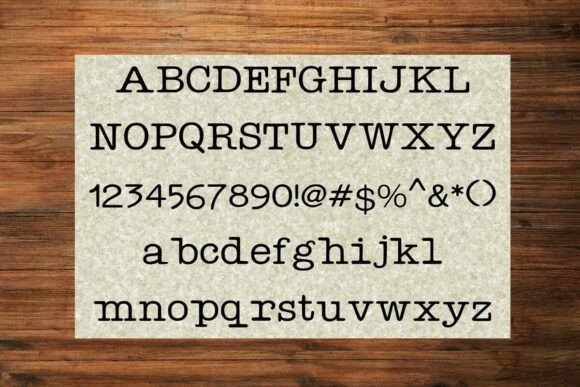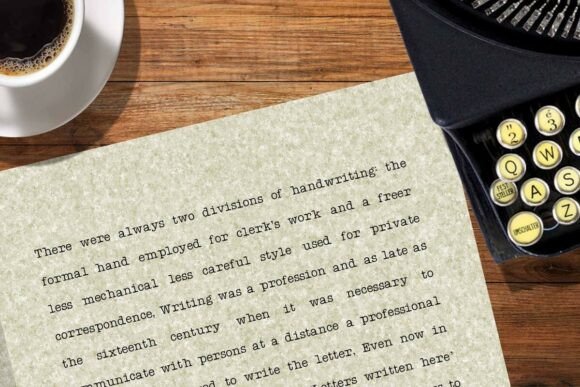
Introduction to Mesintulis Font Font
Fonts play a crucial role in design, and the Mesintulis Font font is a typeface that brings both character and versatility to any project. Whether you’re working on a branding project, a website, or a print design, the Mesintulis Font font offers a unique style that can elevate your work.
Bring back the charm of vintage correspondence with Mesintulis, a meticulously crafted typewriter-style font that captures the nostalgic feel of classic mechanical typing.
The font Mesintulis is a monospaced serif typewriter-style font With its slightly imperfect letterforms, authentic ink-like texture, and subtle irregularities, Mesintulis delivers the warm, analog character that modern sans-serifs canβt match.
Key Features of Mesintulis Font Font
Why Choose Mesintulis Font Font?
The Mesintulis Font font is more than just a typeface β it’s a design tool that helps you communicate your message with style and clarity. Its unique character set and versatile design make it suitable for a wide range of applications, from elegant invitations to bold headlines.
With its carefully crafted letterforms and balanced proportions, the Mesintulis Font font ensures readability and visual appeal across all mediums.
What makes Mesintulis Font font special?
The Mesintulis Font font stands out with its unique design, exceptional readability, and versatility across various design applications.